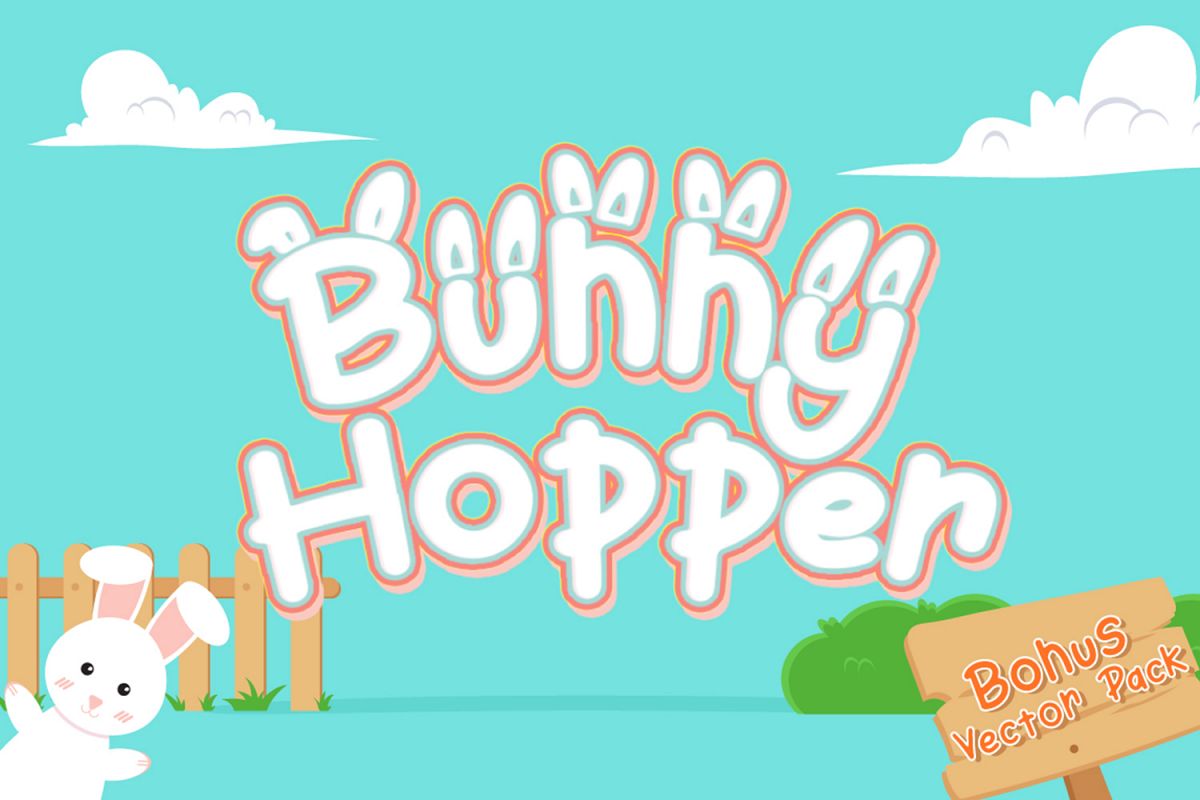
Bunny Hopper Font is playful, fun and fresh font. It comes with 2 styles (Regular and bunny ear).
Bunny Hopper also comes with 80 vector illustration.